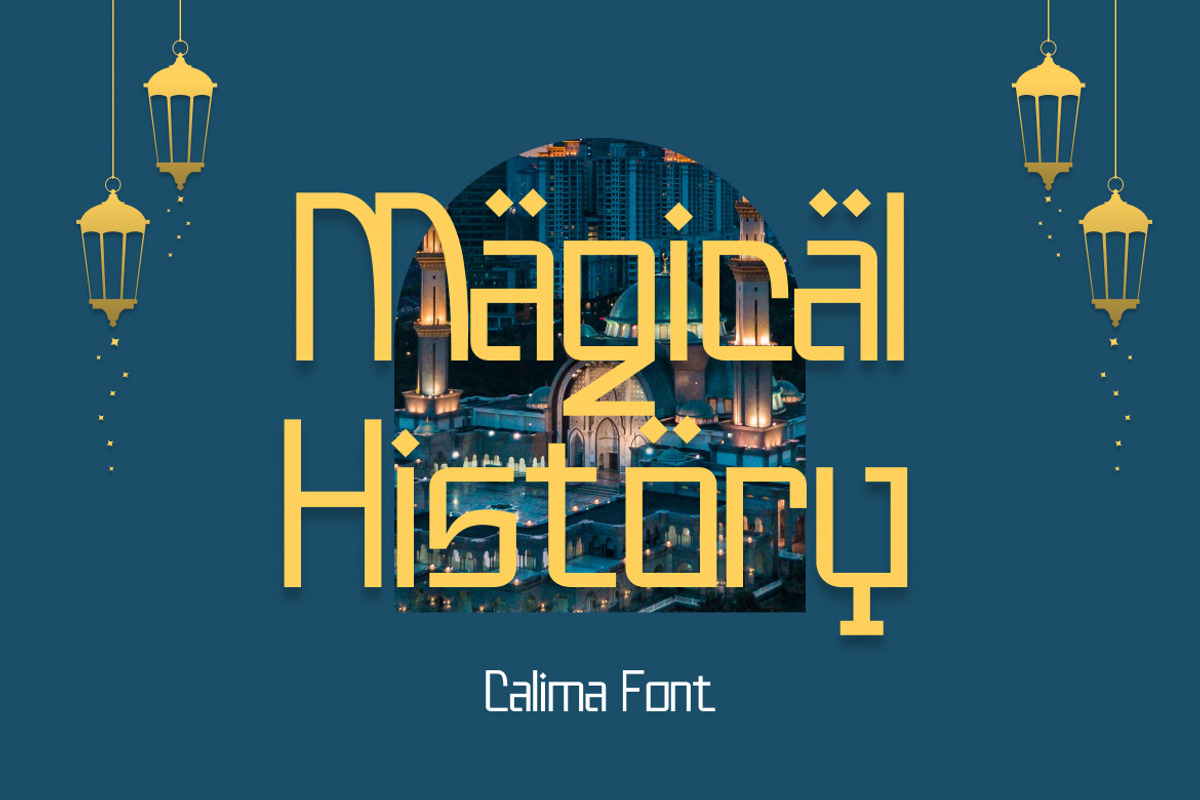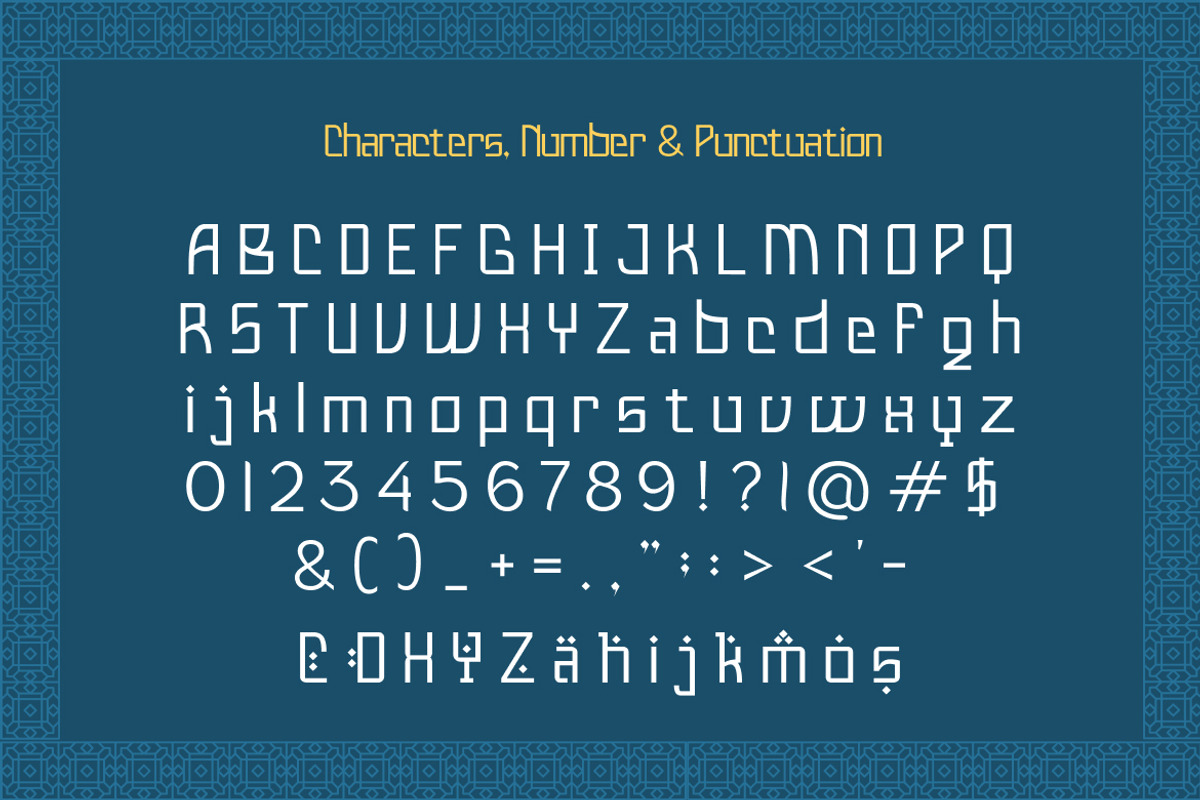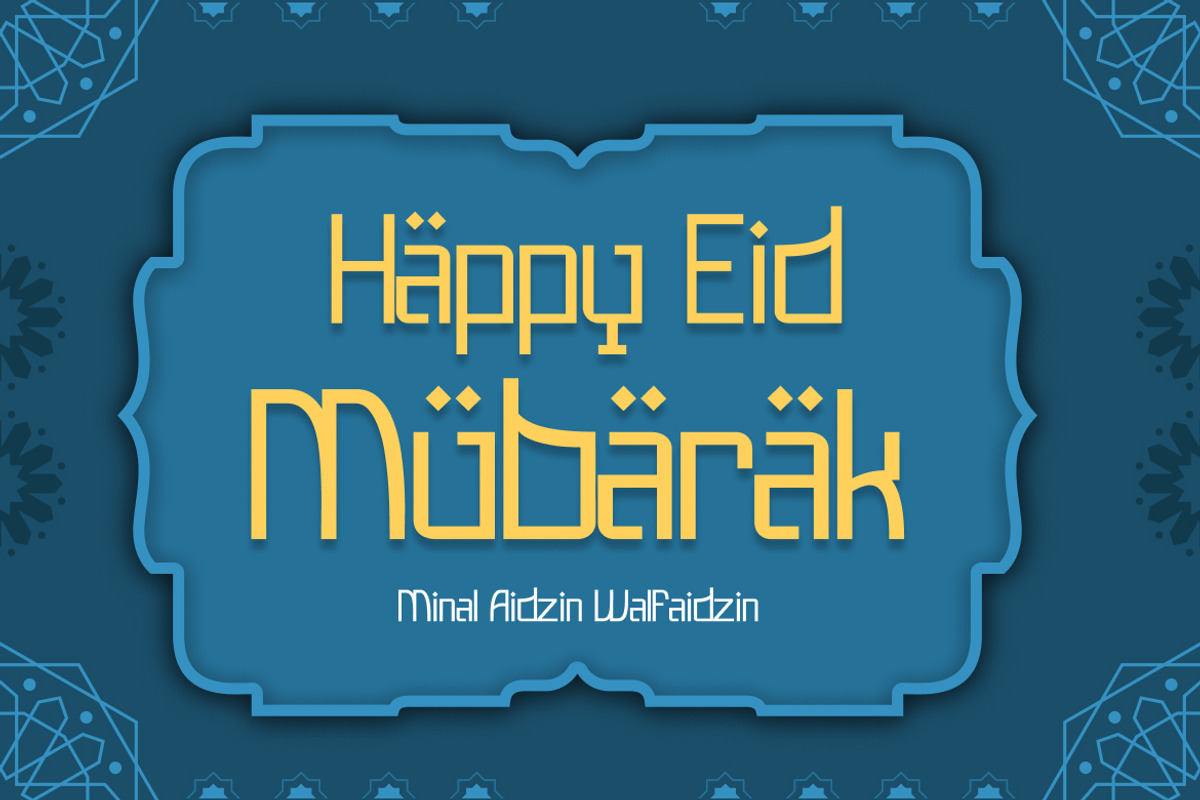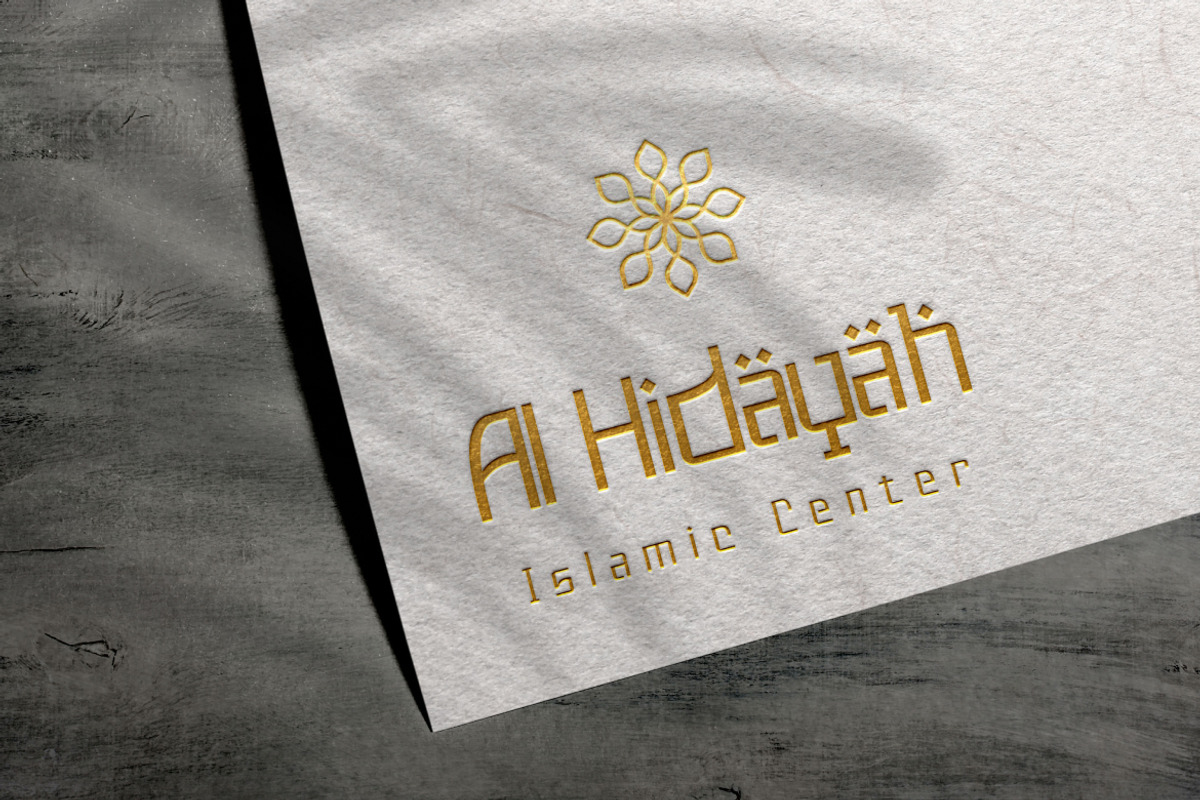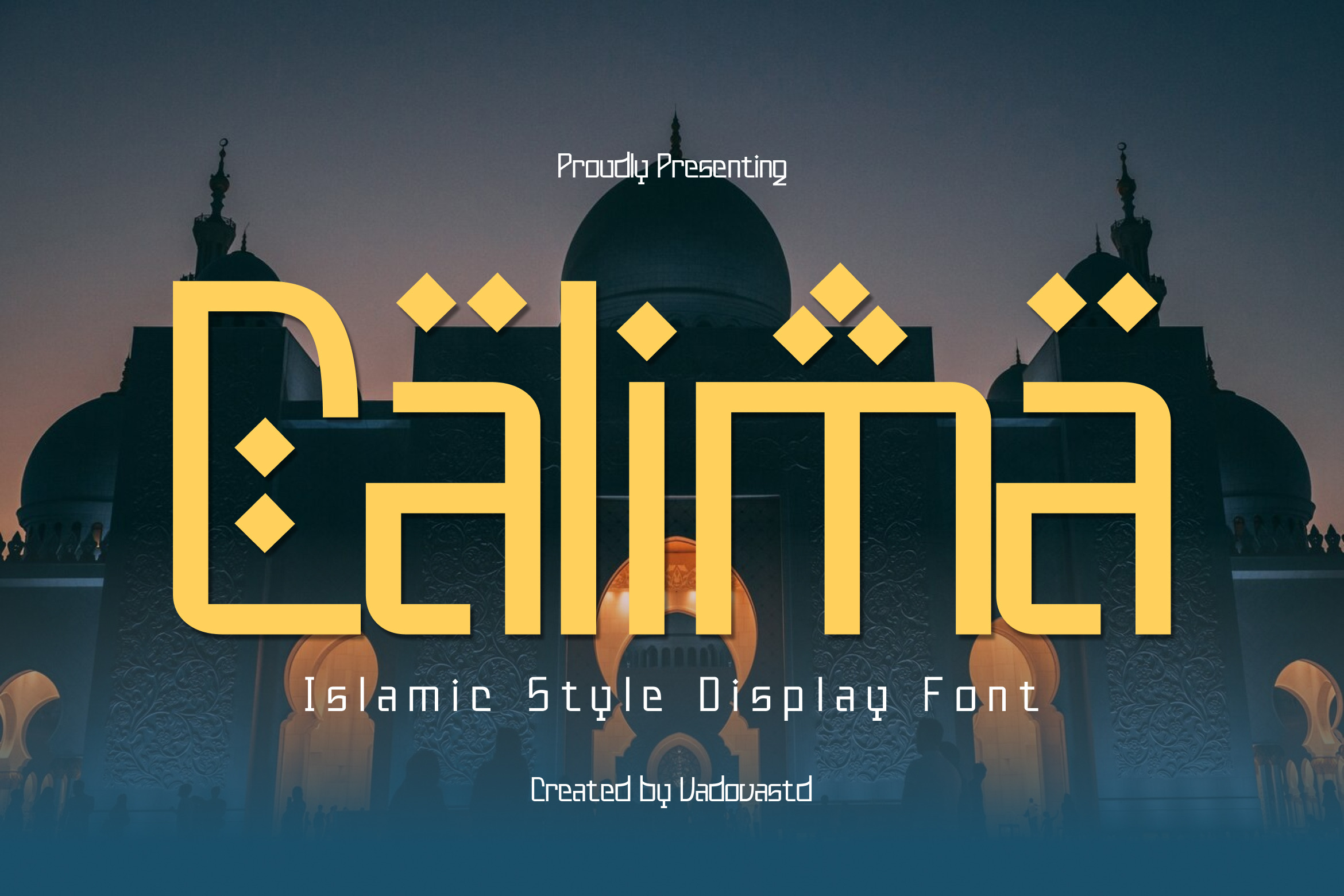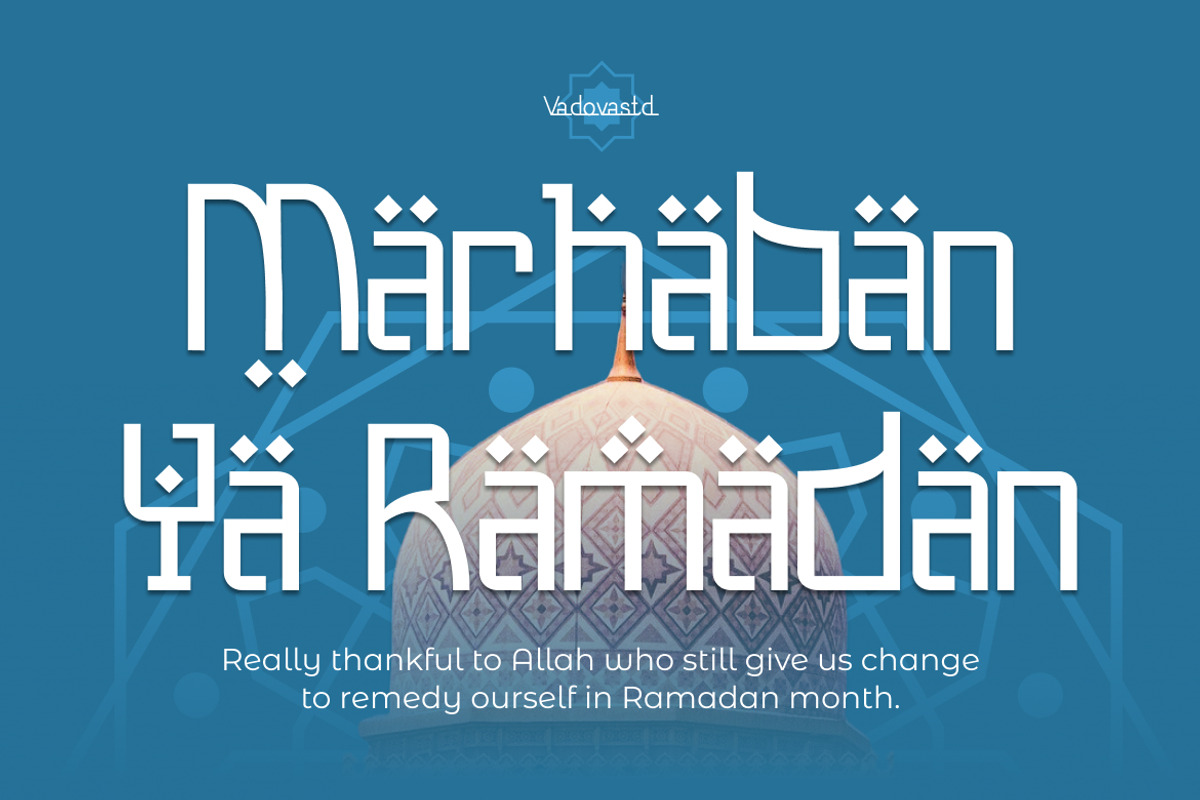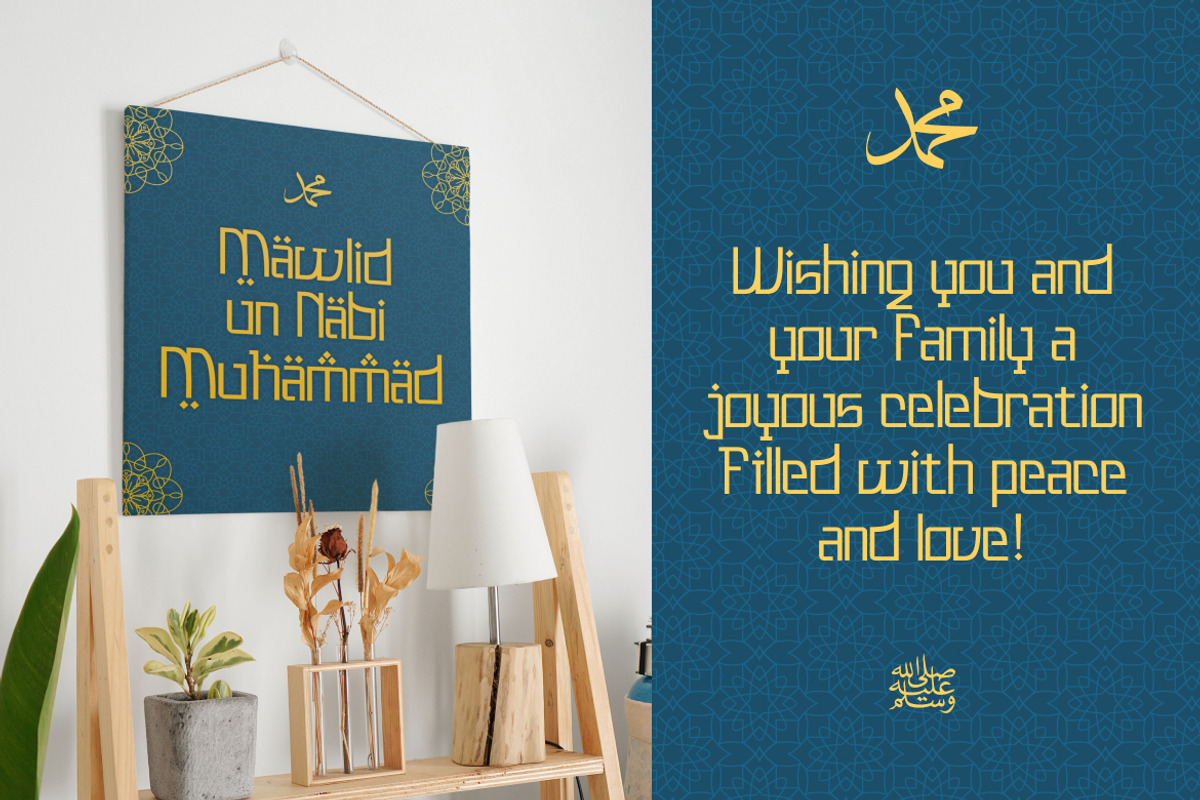
Calima – Islamic Style Display Font
Calima is a modern Islamic display font designed with striking geometric shapes and strong cultural influences. Each character reflects architectural precision inspired by Islamic art and calligraphy, resulting in a display typeface that feels both powerful and elegant.
This font brings a unique blend of contemporary structure and traditional identity, making it ideal for branding, posters, packaging, and event graphics that demand cultural depth with a modern edge.
Font Highlights
Uppercase & lowercase letters
Numerals and punctuation
Bold geometric display style with Islamic character
Why Designers Love Calima
Architectural Elegance – Inspired by the geometry of Islamic art and structures.
Distinctive Display – Makes headlines, logos, and signage stand out.
Cultural Depth – Merges tradition with a clean, modern style.
Versatile Use – Perfect for branding, editorial layouts, religious themes, and cultural projects.
Best Applications
Islamic event posters and festival graphics
Cultural branding and identity systems
Editorial titles and magazine layouts
Product packaging with Arabic themes
Logo design and architectural signage
Social media campaigns and digital ads
Make a bold cultural statement with Calima — where modern geometry meets Islamic elegance.